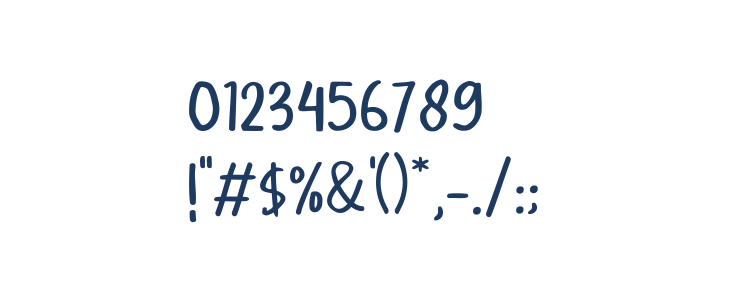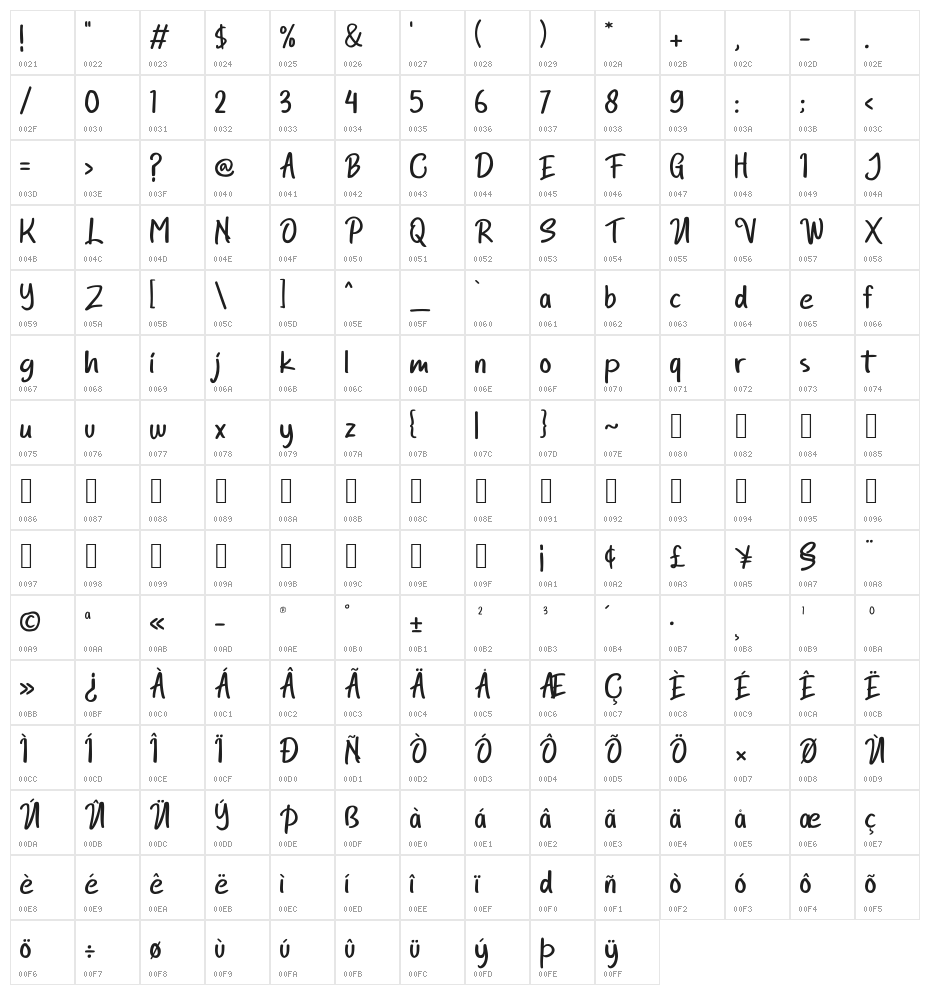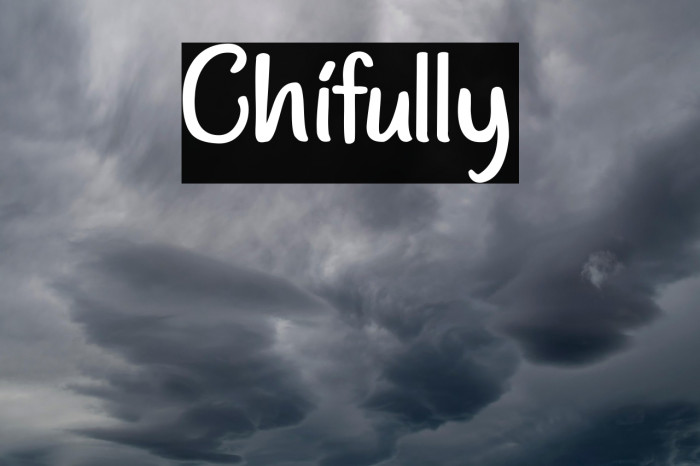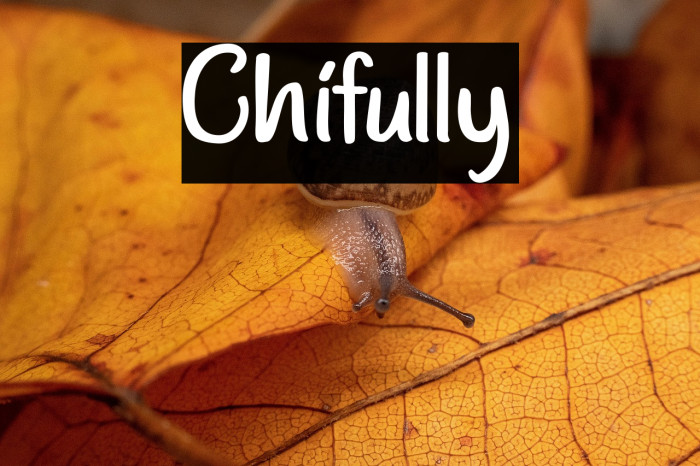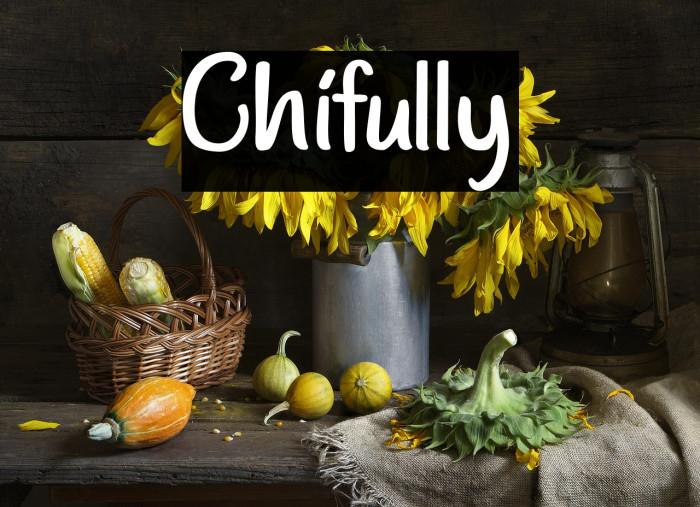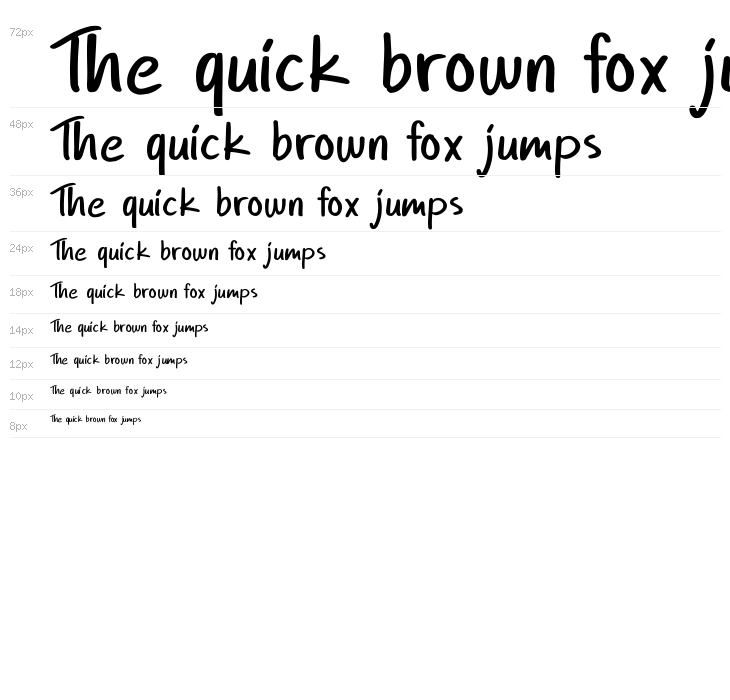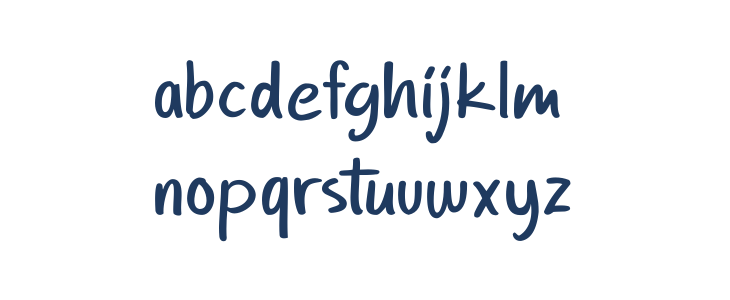
Chifully Font
Chifully Description
This font exhibits a playful and casual handwritten style, characterized by its smooth, flowing strokes and slight slant. The uppercase letters are bold and prominent, while the lowercase letters maintain a consistent, rounded appearance. The numerals are clear and easily distinguishable, complementing the overall informal aesthetic. Special characters are well-integrated, maintaining the same fluidity and casual tone. The font's design is approachable and friendly, making it suitable for projects that require a personal touch.
| Use Case | Logos, Headlines, Informal Text |
| Proposed Projects | Ideal for greeting cards, invitations, personal branding, and social media graphics. |